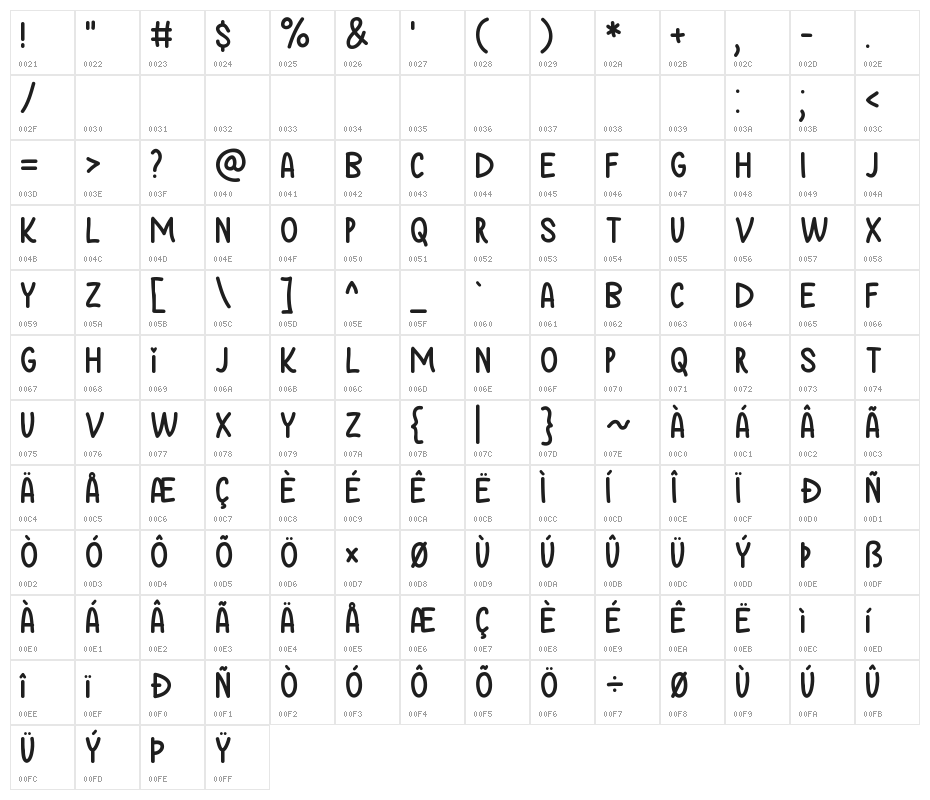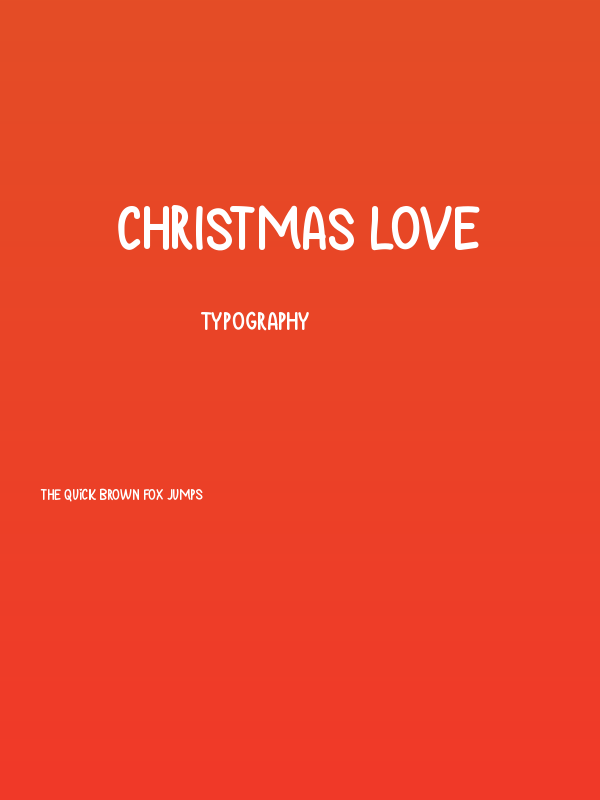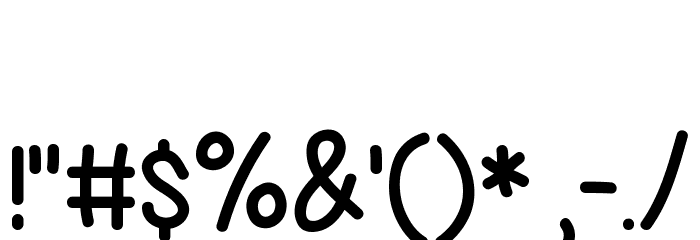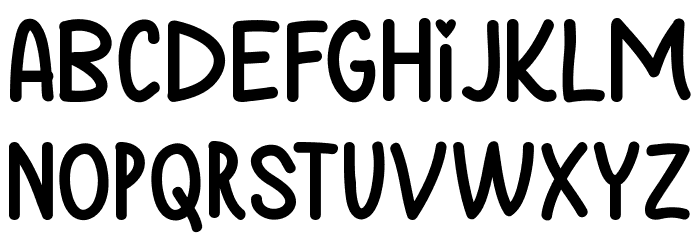
Christmas Love Font
This playful and whimsical font features rounded, bold characters with a hand-drawn feel. The letters have a consistent thickness, giving them a uniform appearance that is both approachable and friendly. The style is reminiscent of casual handwriting, making it ideal for projects that require a personal touch. The uppercase and lowercase letters are well-proportioned, and the numbers and special characters maintain the same playful aesthetic. The font's overall design is simple yet charming, making it versatile for various creative applications.
| Use Case | Logos, Headlines, Greeting Cards |
| Proposed Projects | Ideal for greeting cards, children's books, playful branding, and festive designs. |